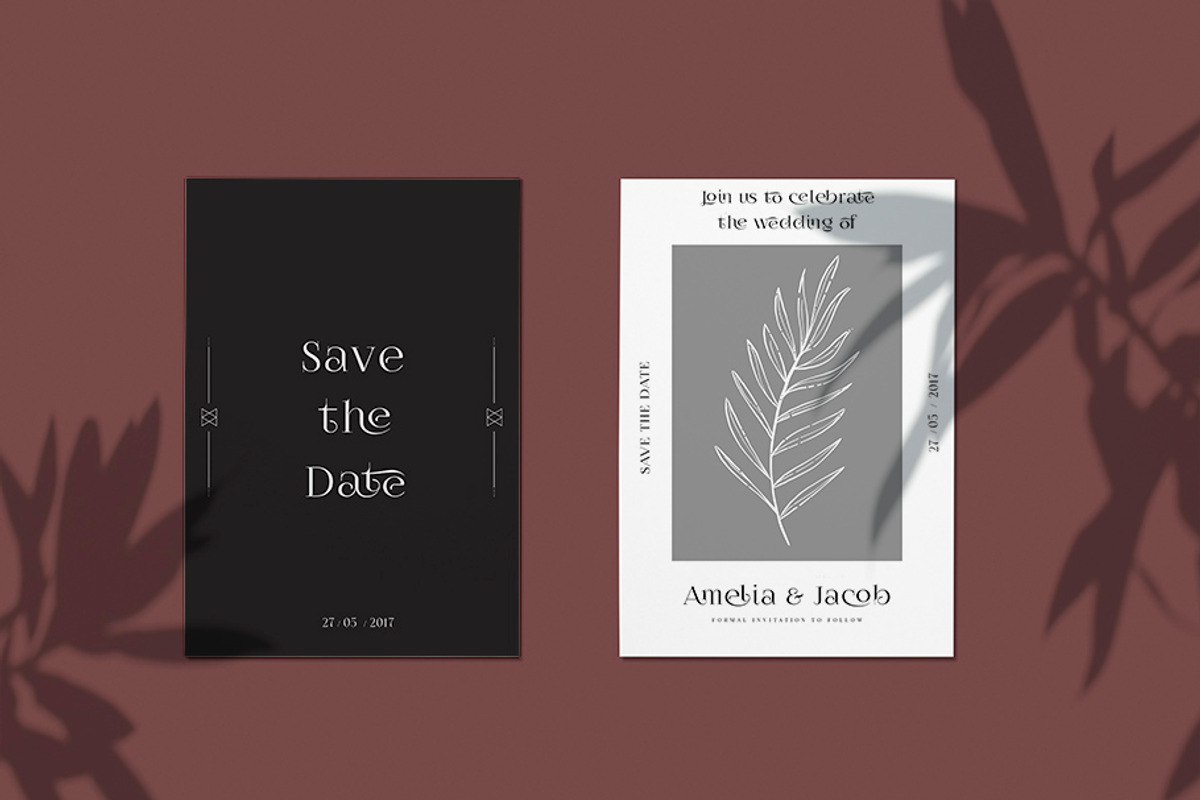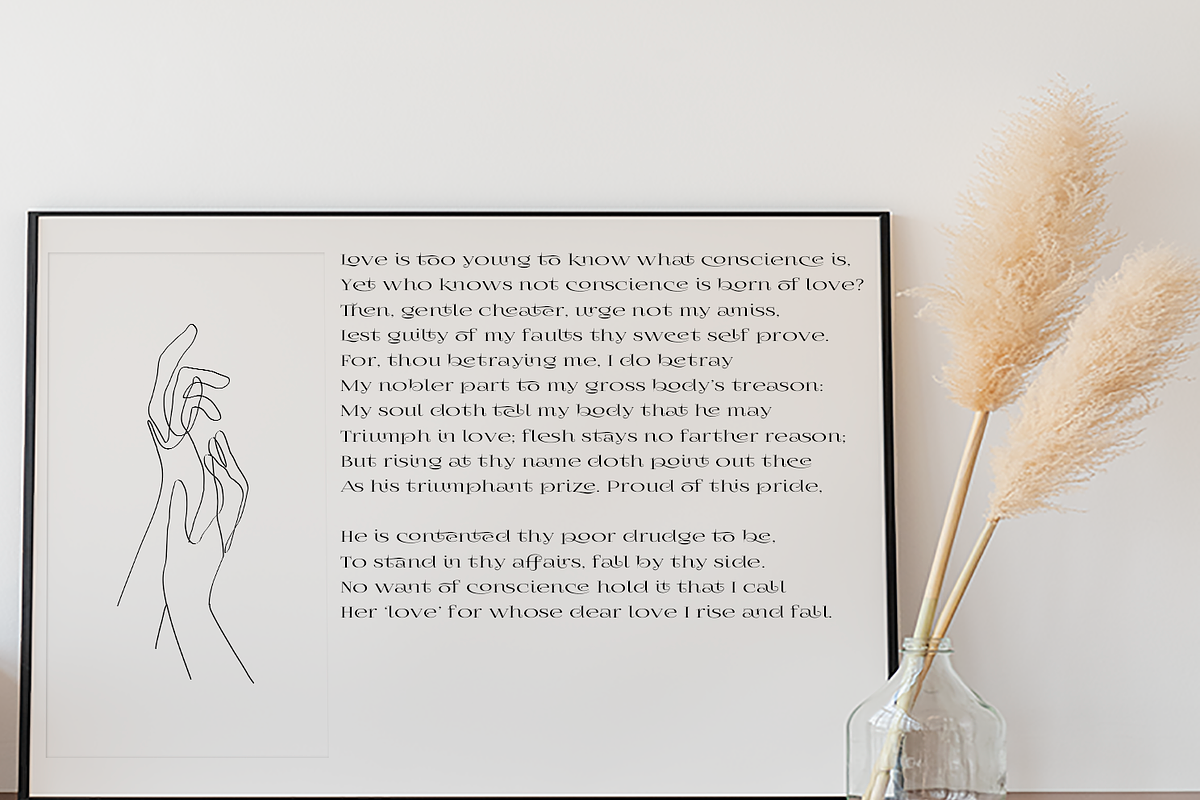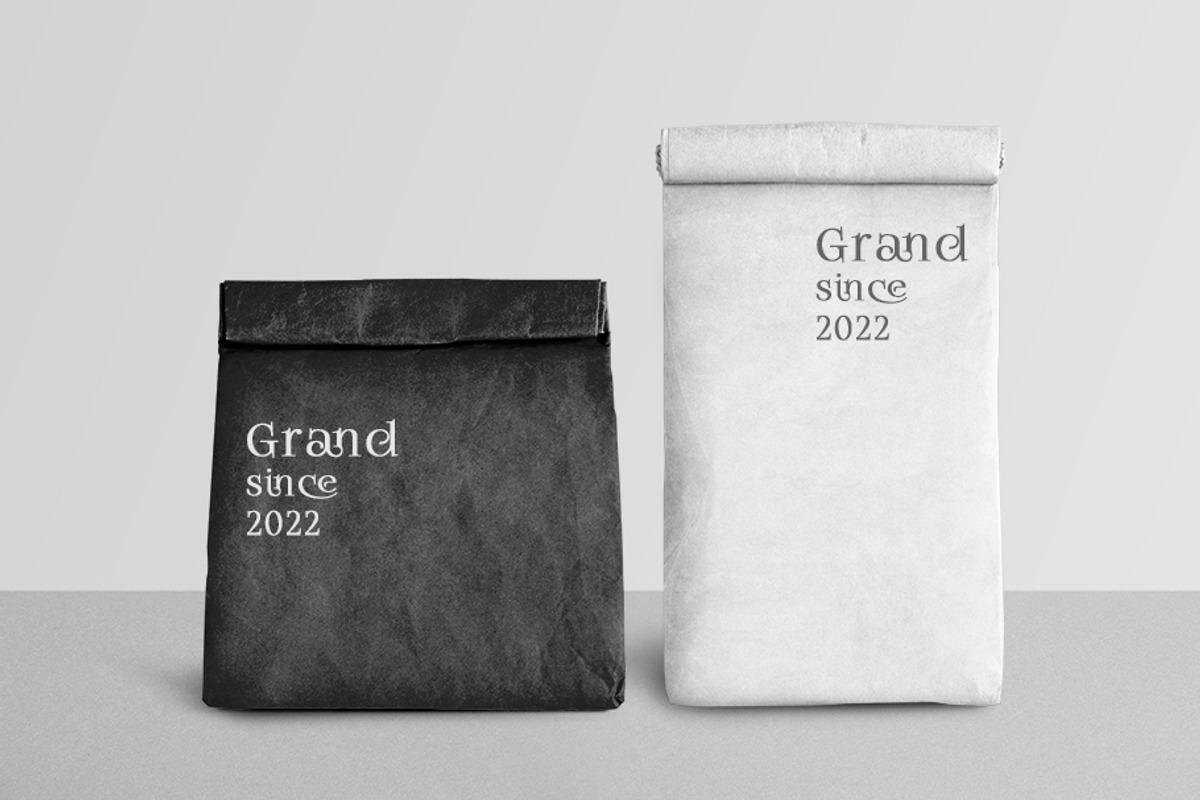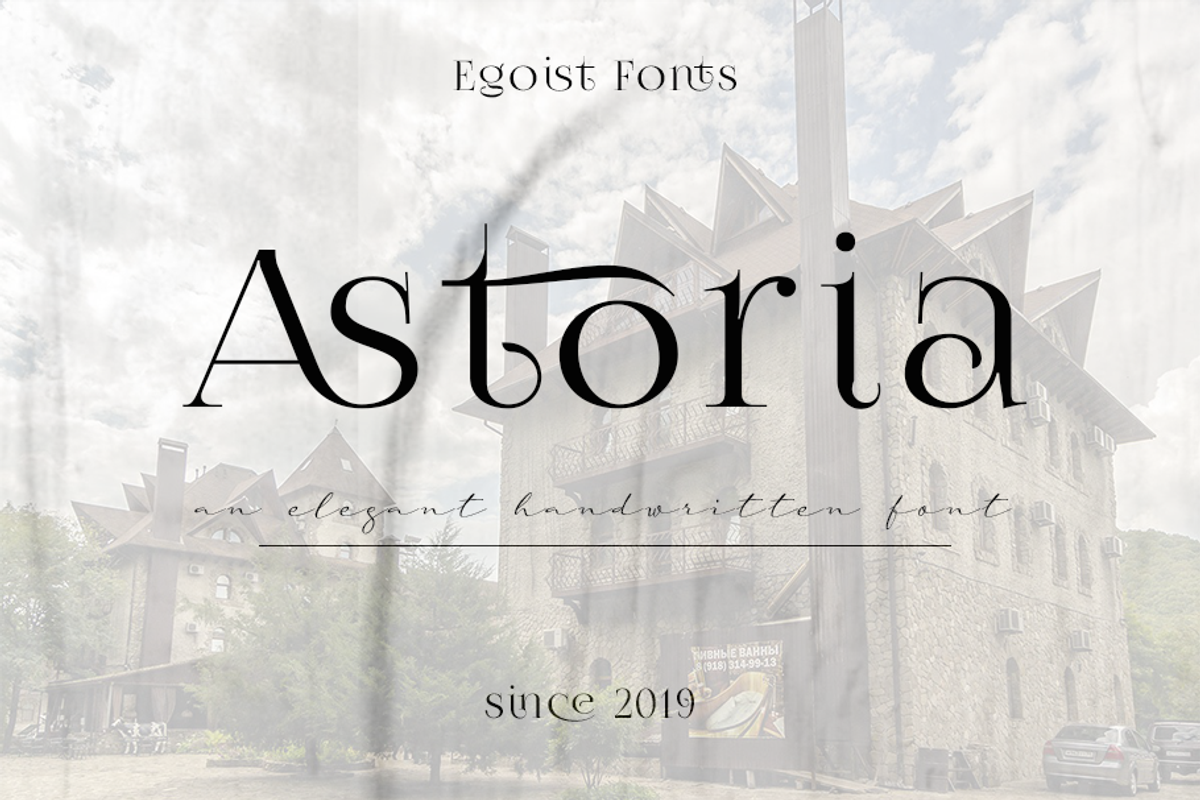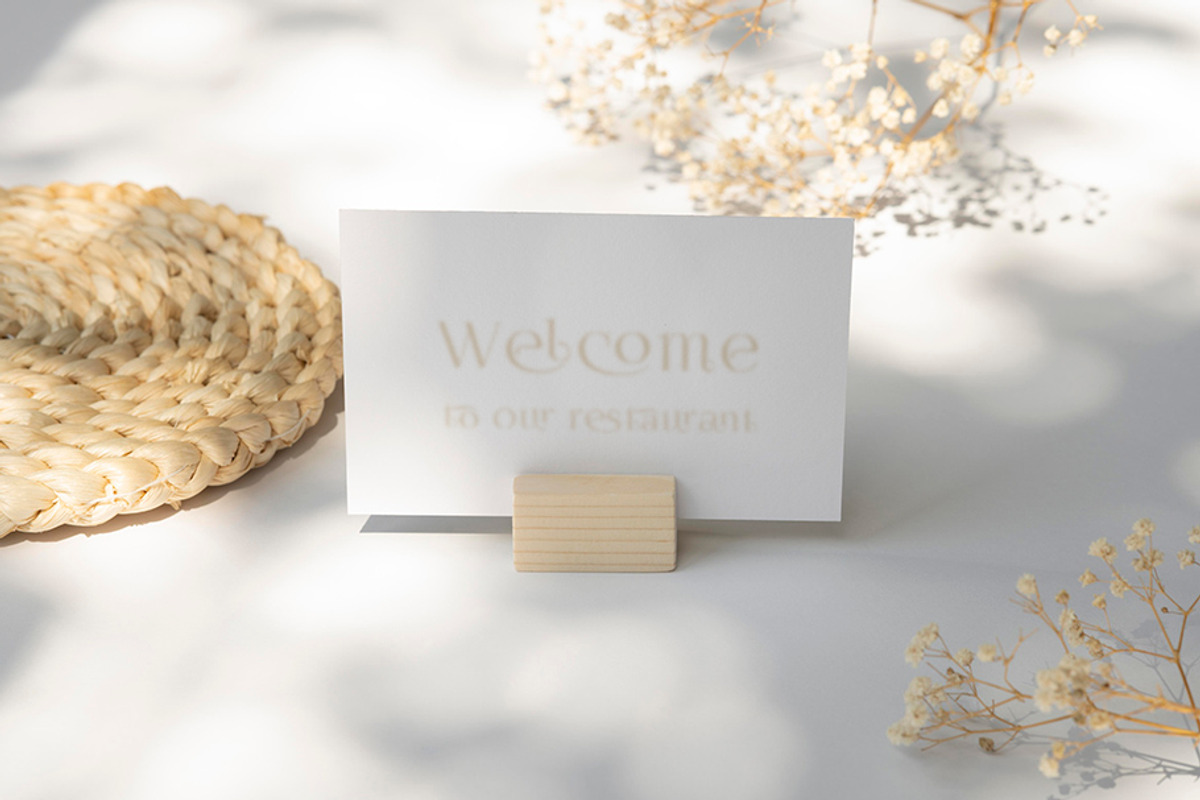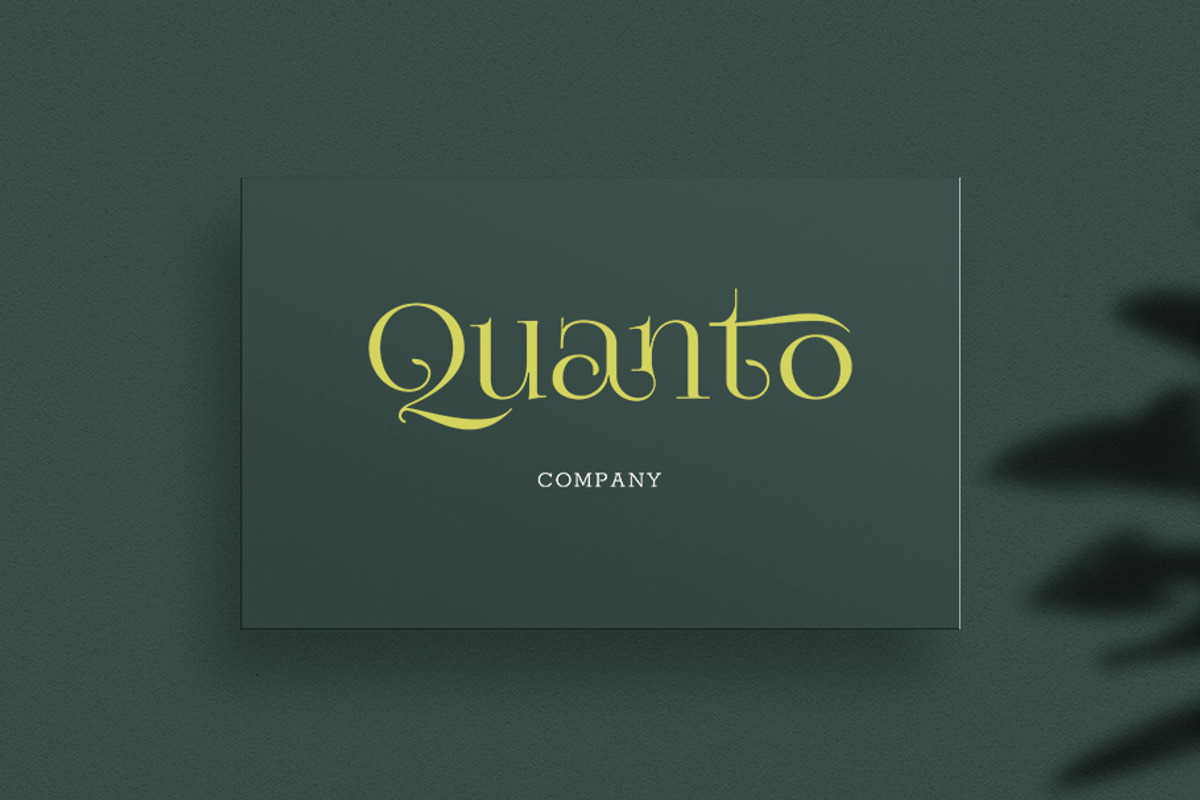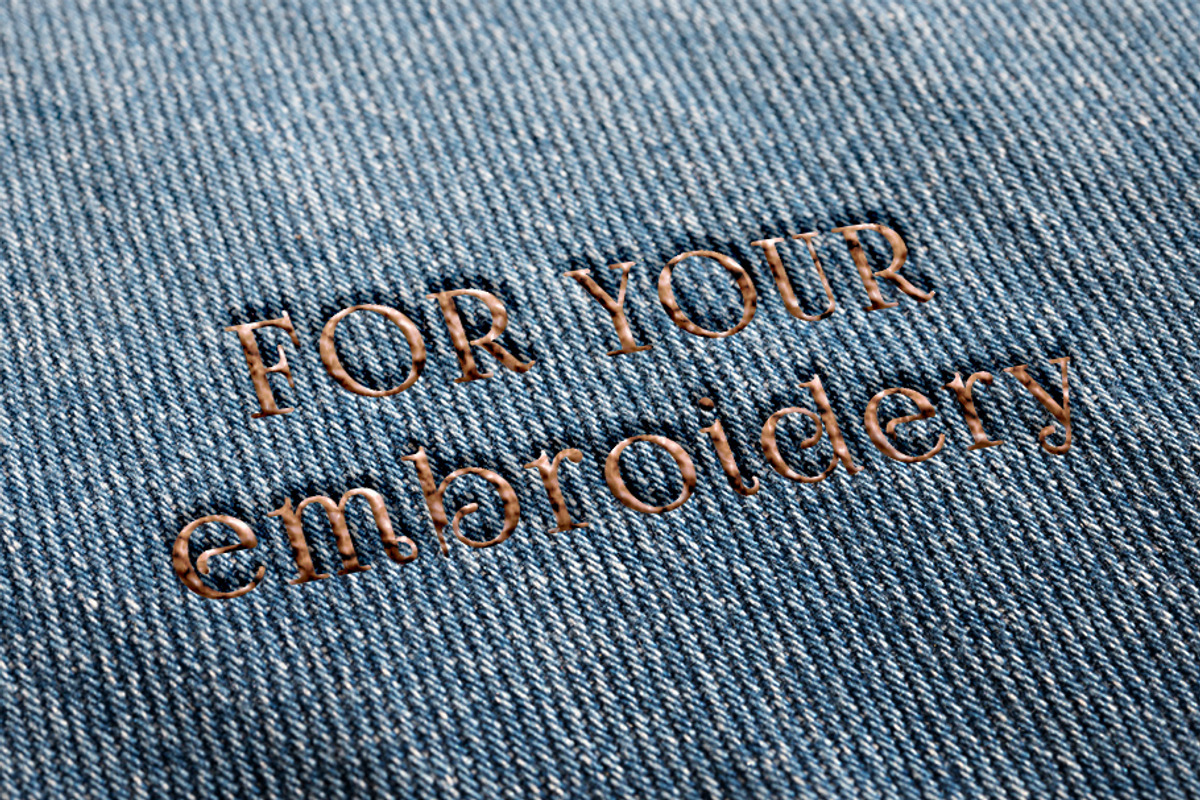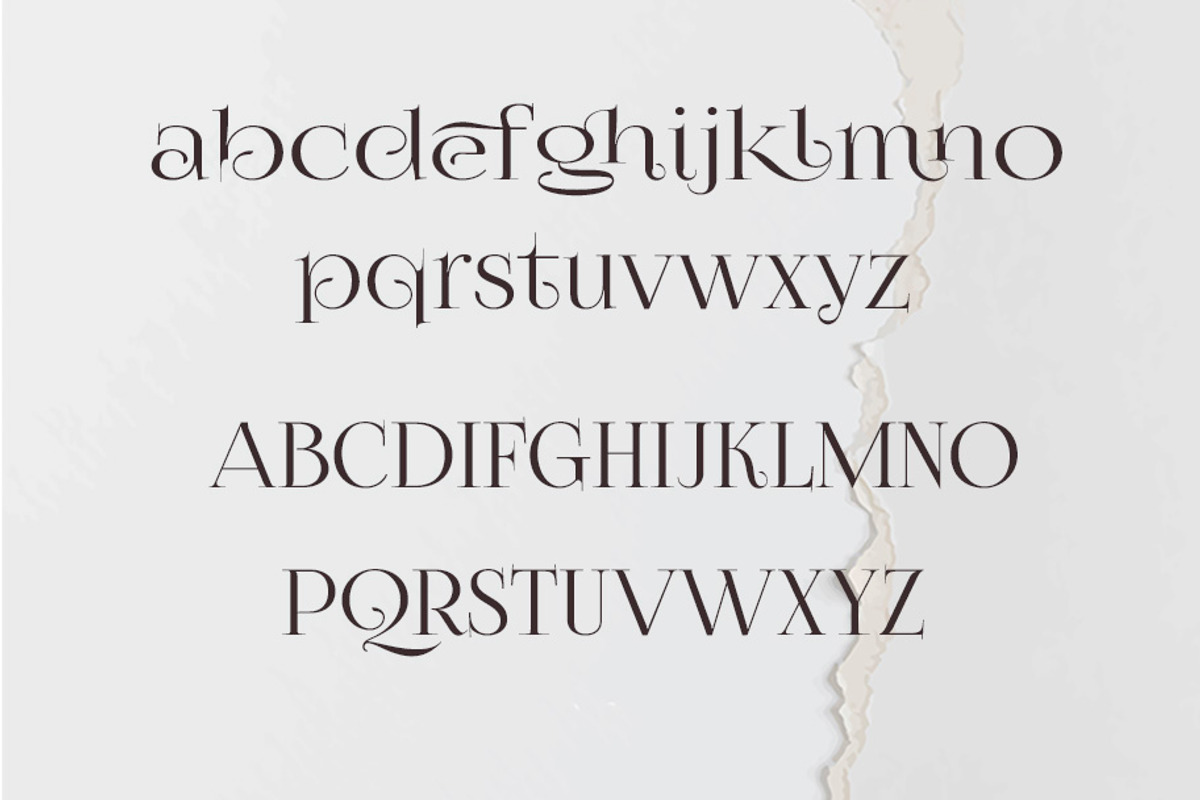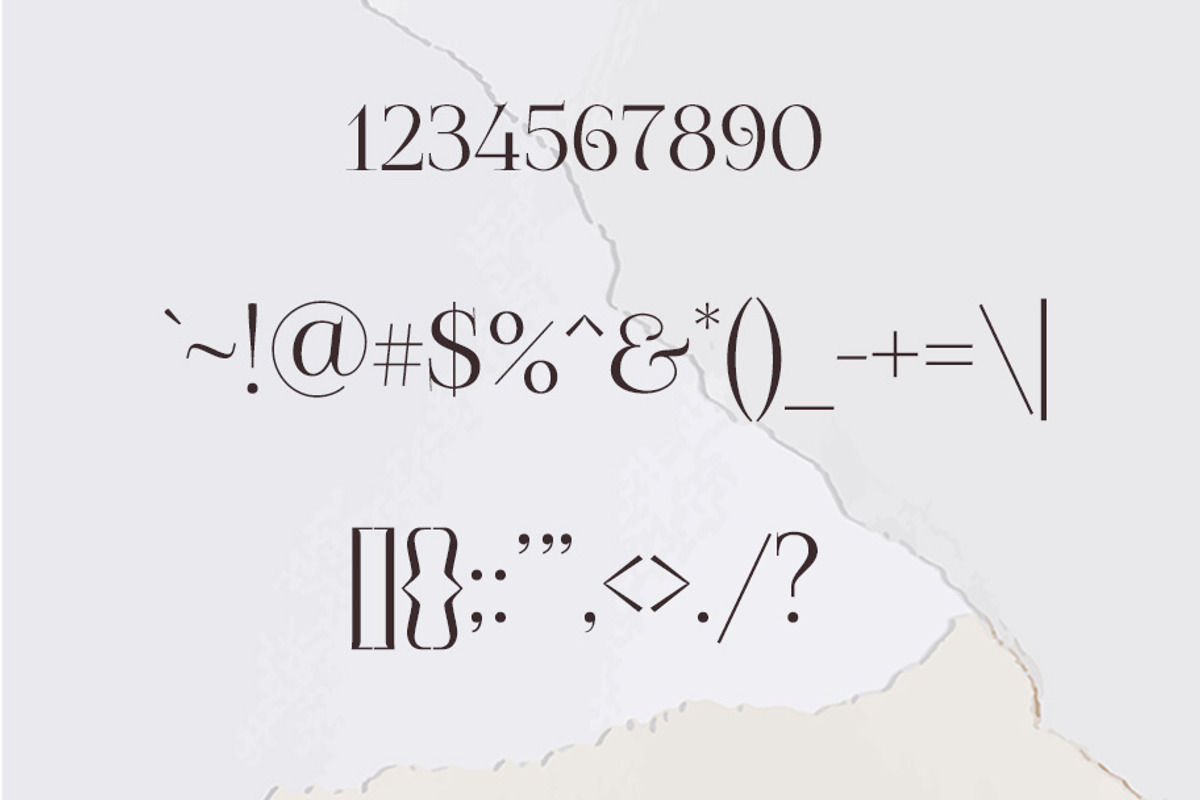
Astoria
Astoria is a very elegant and romantic font for your creativity. Write postcards, congratulations, invitations to celebrations and weddings... Good luck with your creativity.
Astoria is also included full set of:
- All uppercase and lowercase letters
- multilingual characters
- numerals
- punctuation